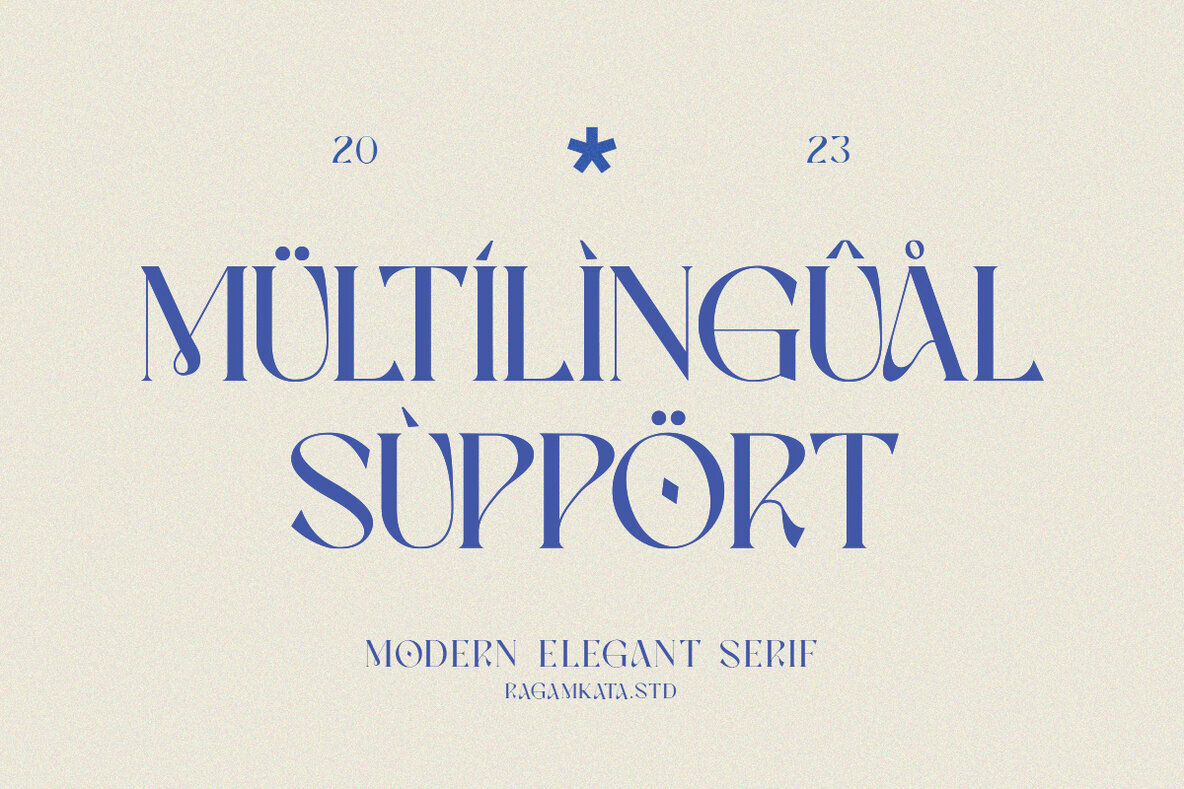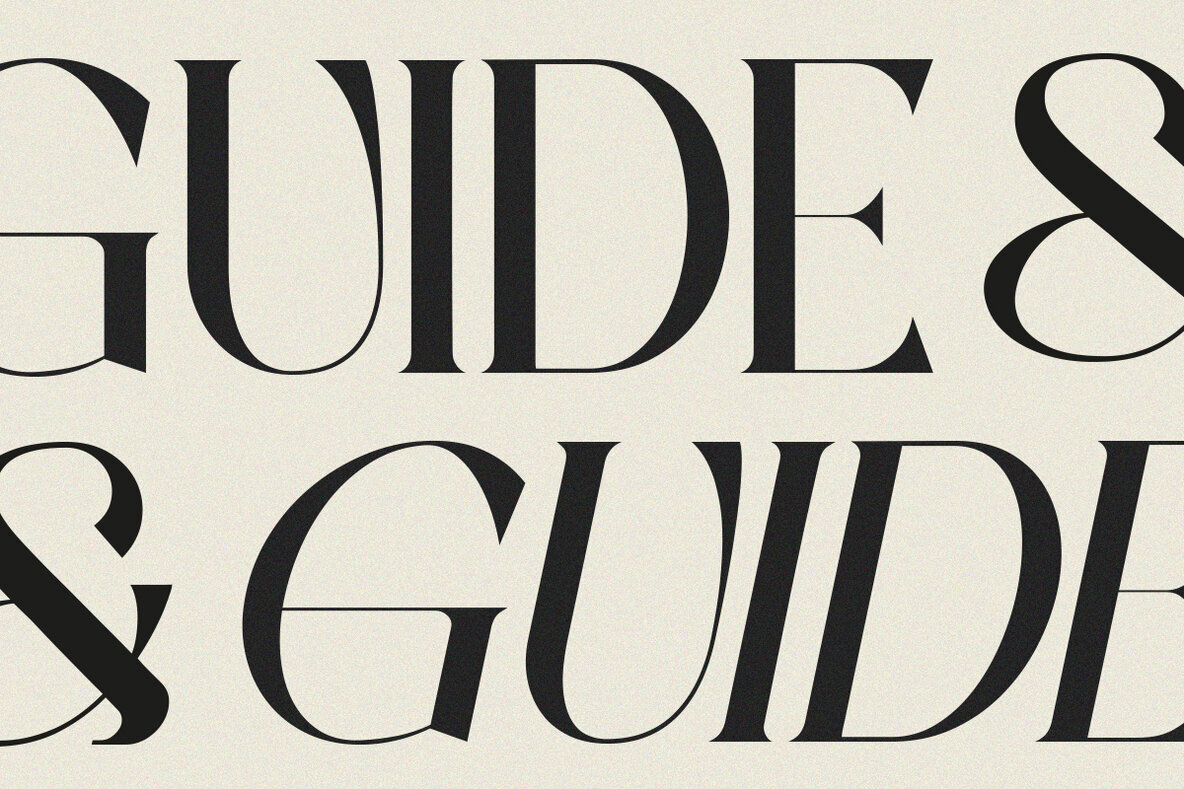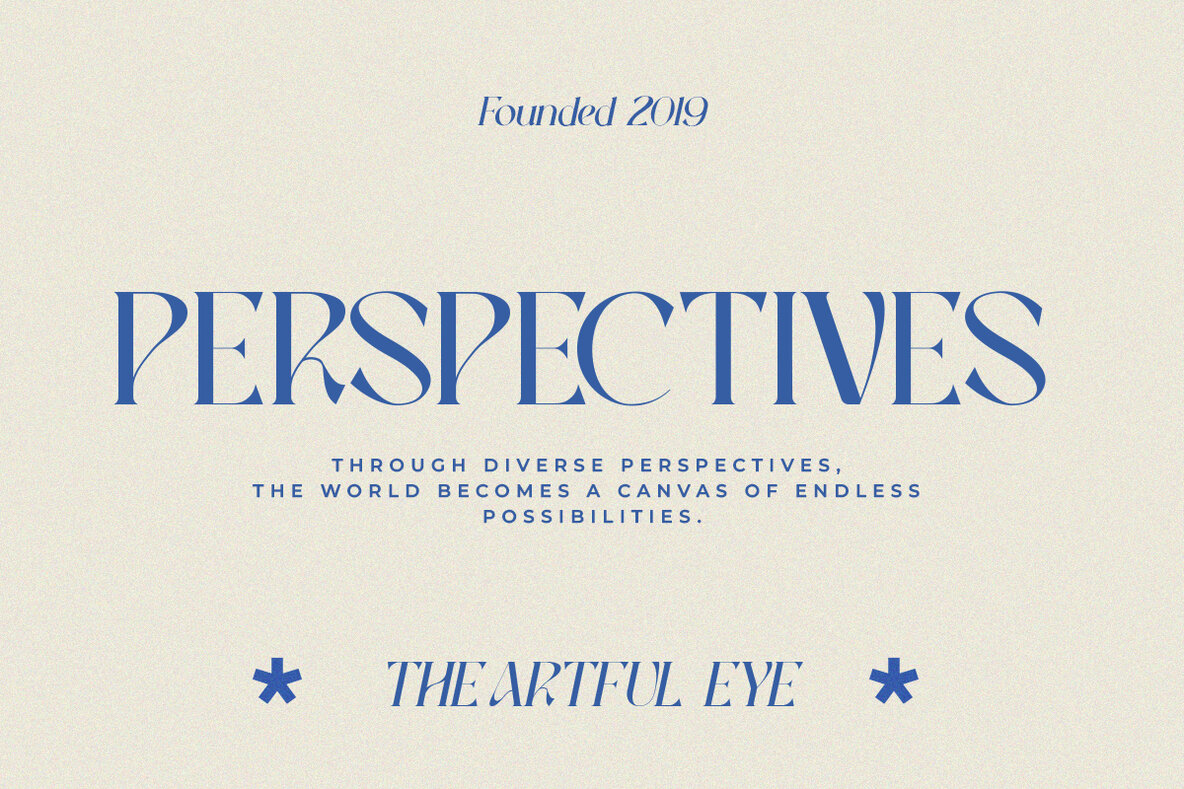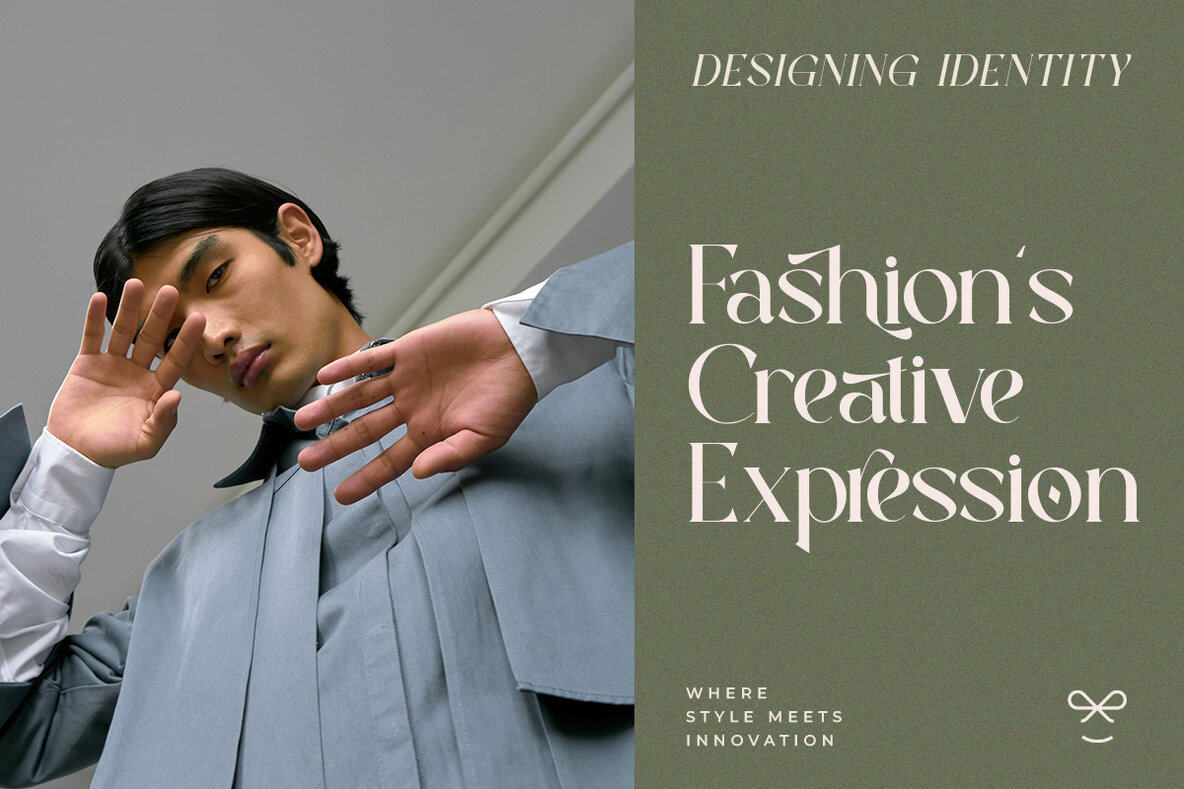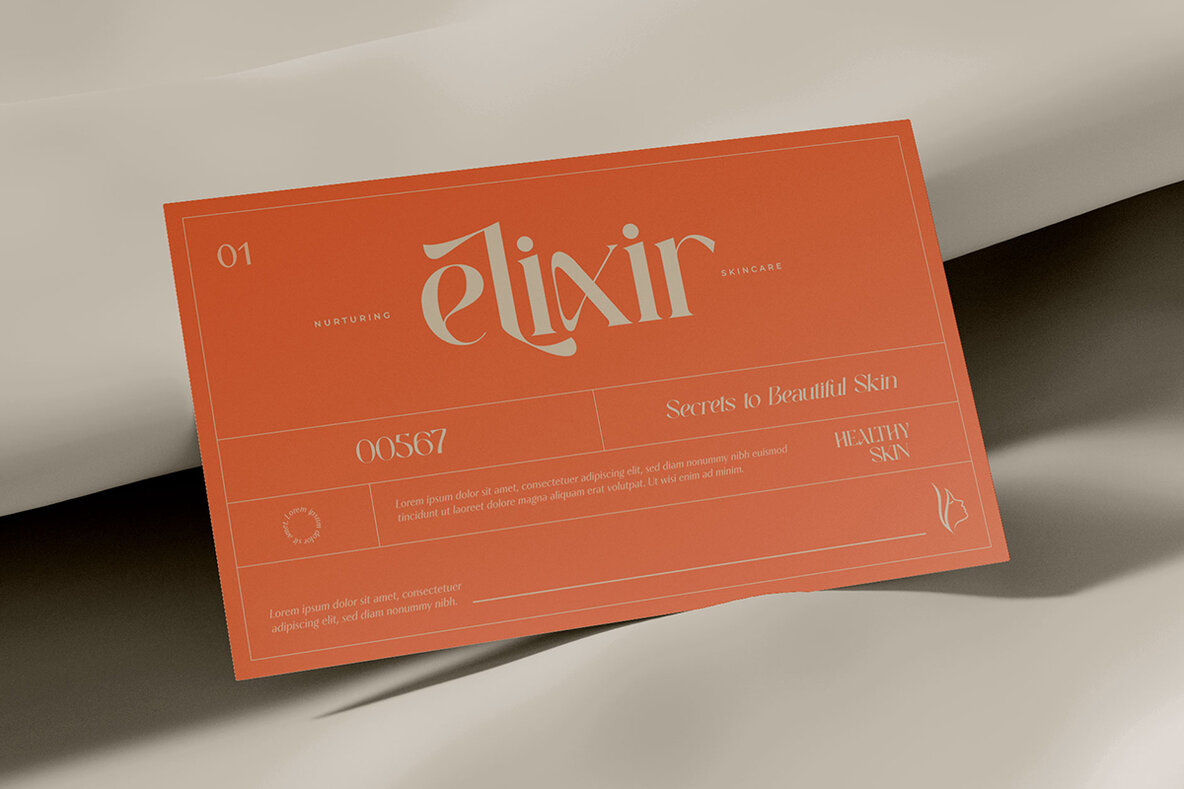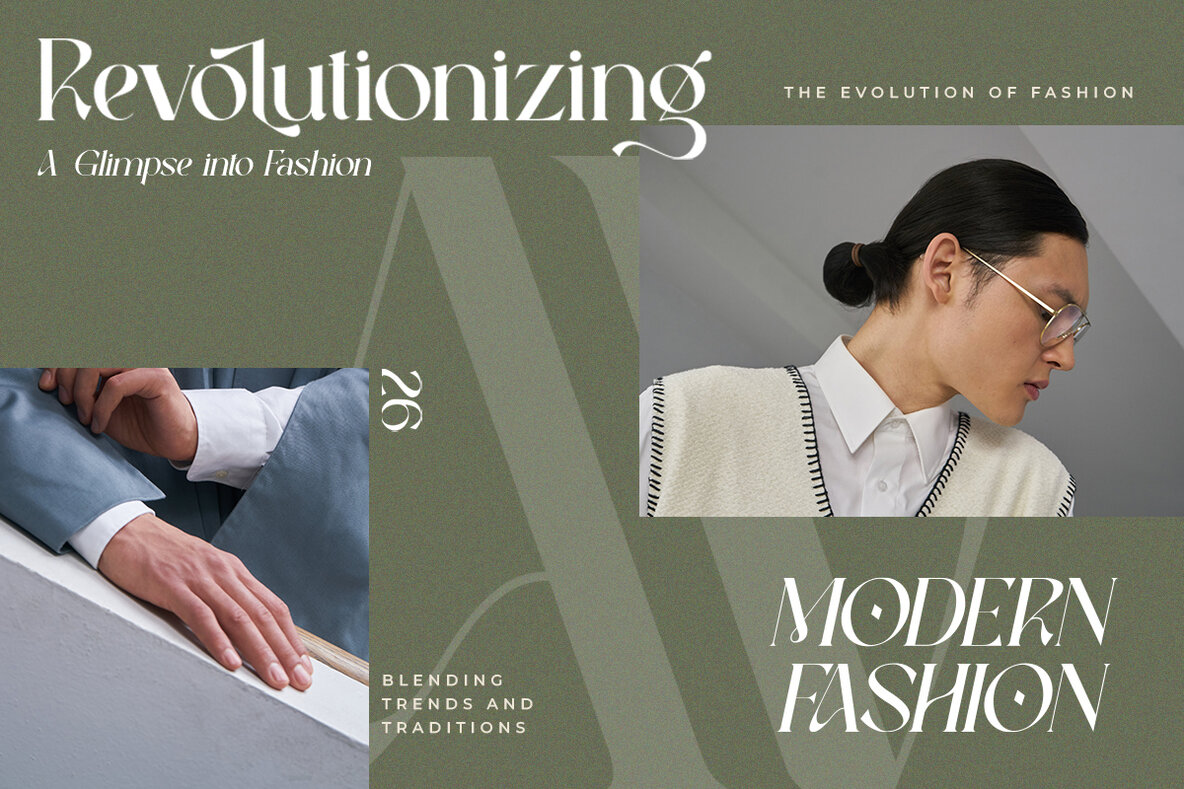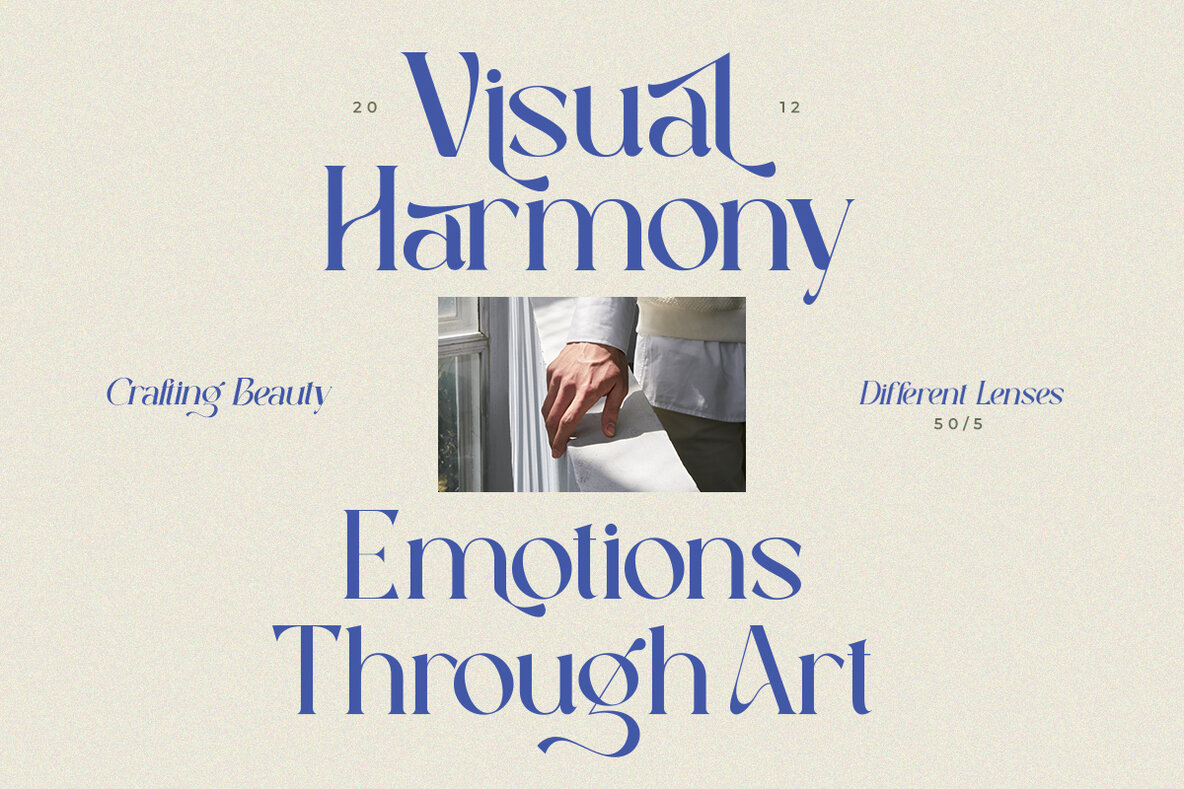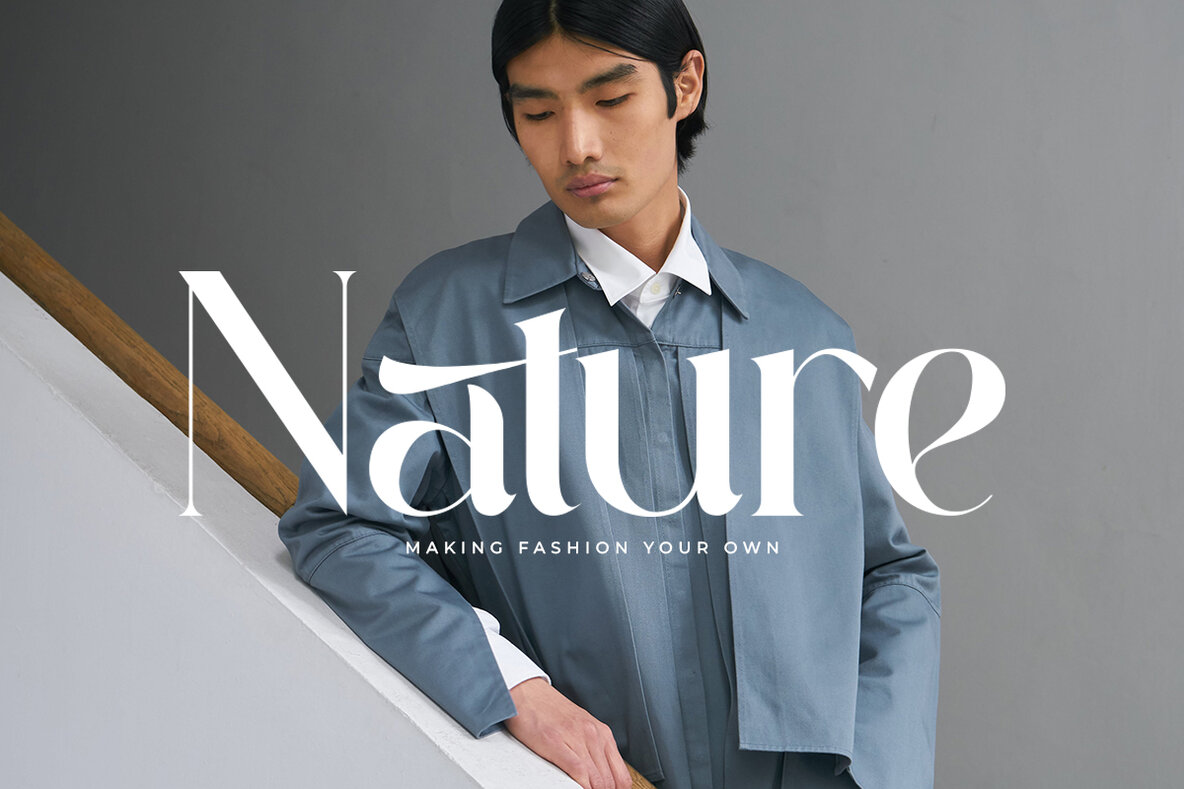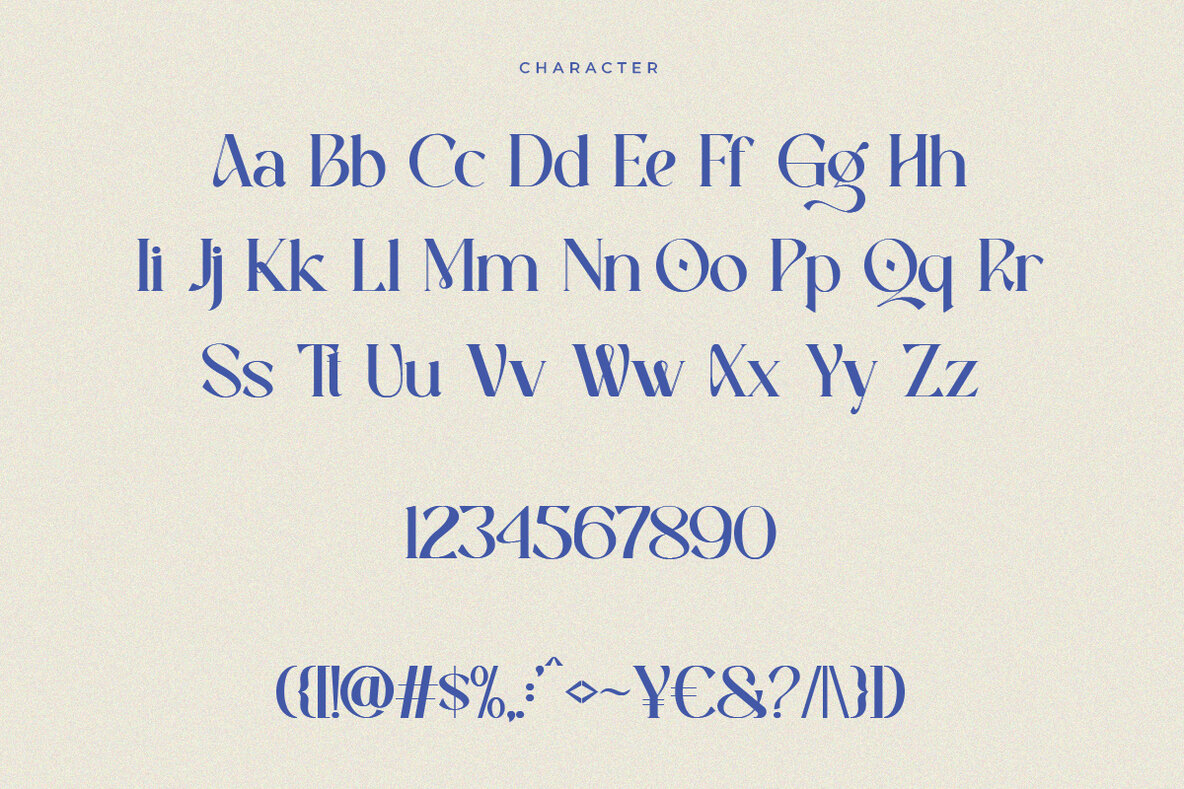
Lovage Font
Lovage is a modern elegant serif typeface tailored for sophisticated branding needs. With its unique ligatures and alternate forms, this typeface offers a blend of femininity and distinctiveness, perfect for elevating your brand identity. Lovage is specifically crafted for fashion-themed projects and is ideal for designing logos, titles, and magazine layouts. Its chic and stylish attributes make it suitable for a wide range of lifestyle designs.Lovage: Elegant Serif Typeface for Modern Branding
Designed for Elegance